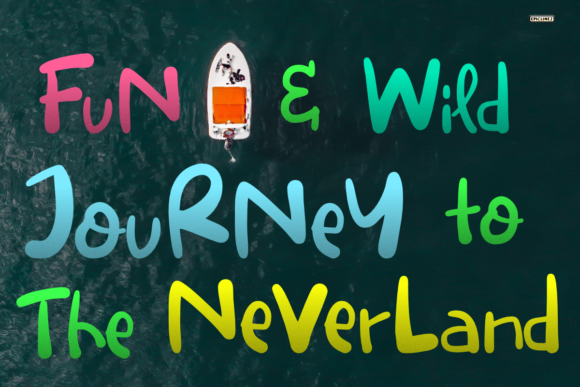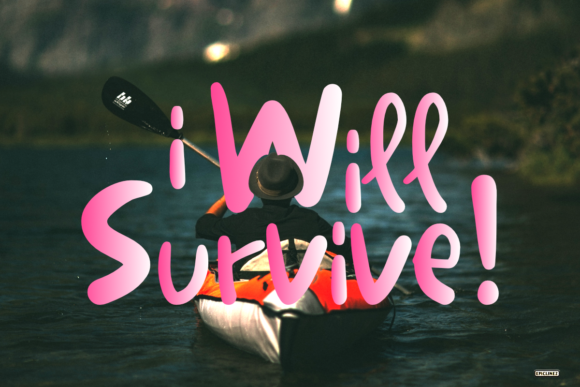
Trans Atlantic Font
About Trans Atlantic Font
Trans Atlantic is a bold and fun handwritten font. Get inspired by its flowing look and use it to add that special, playful touch to your designs!